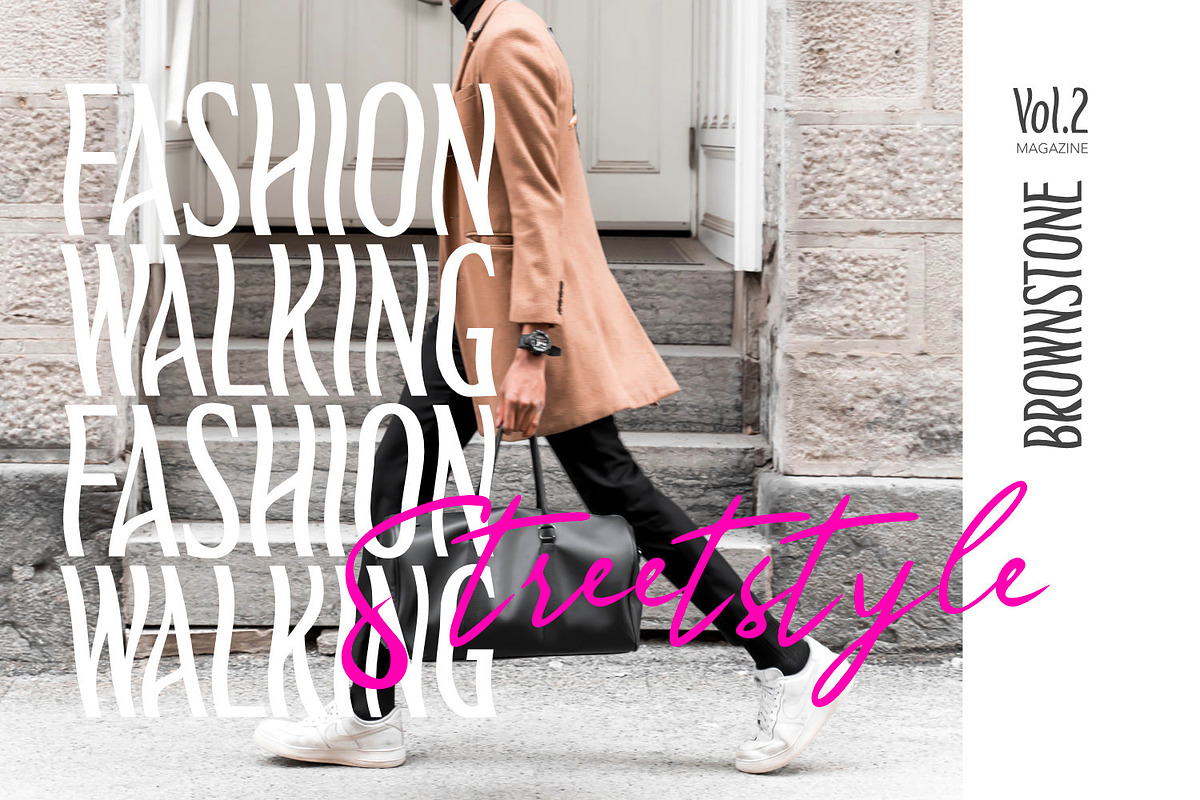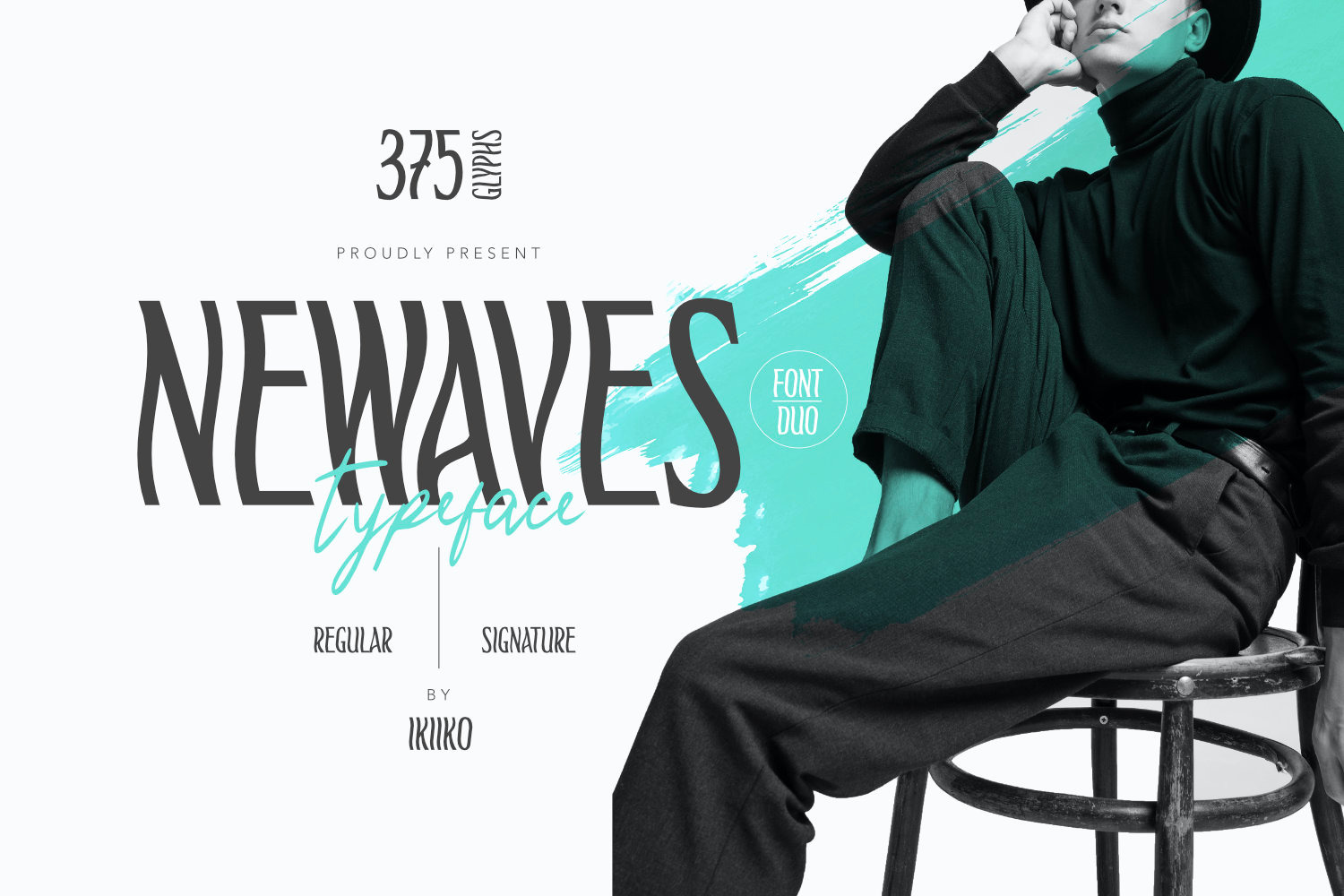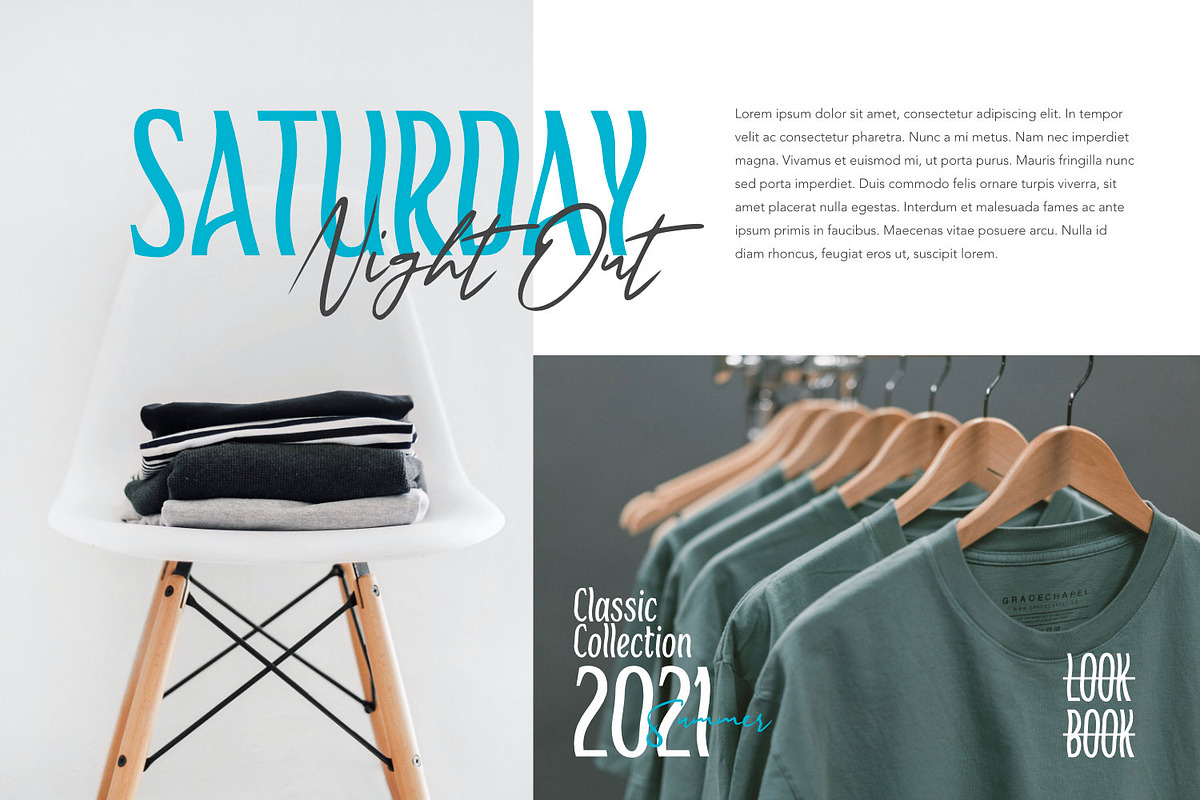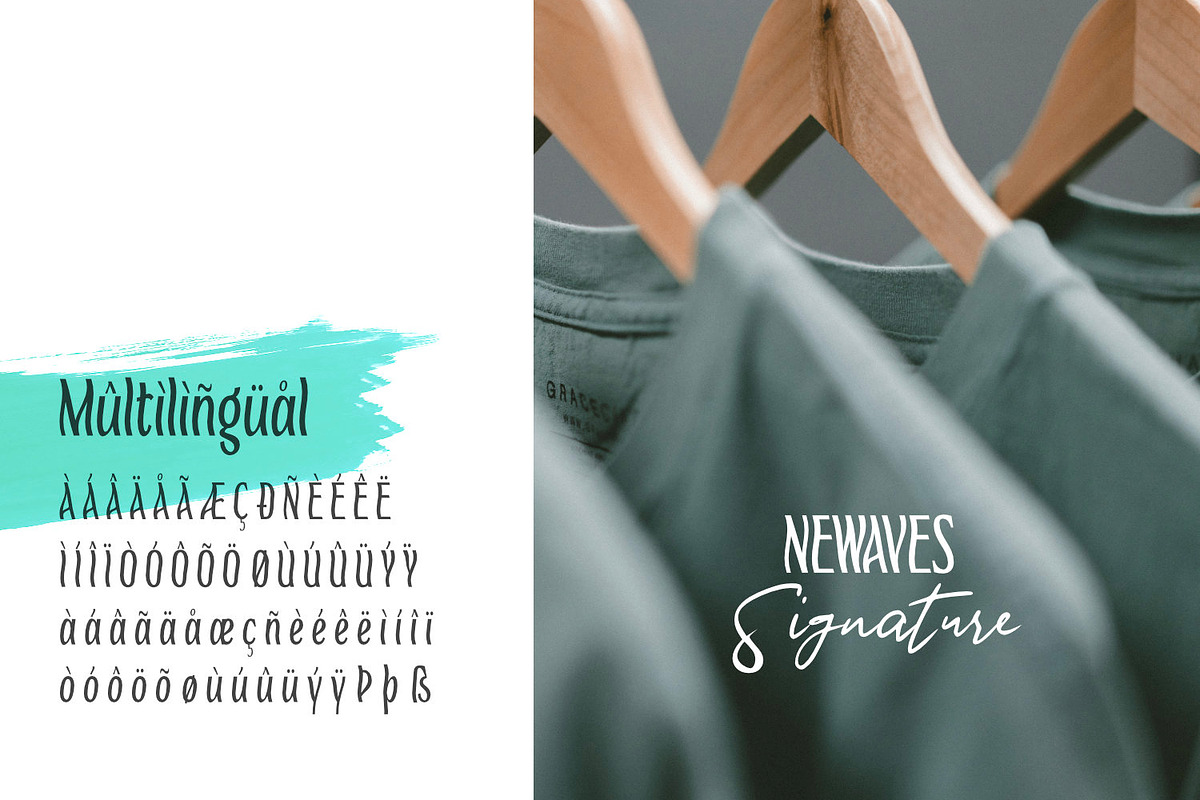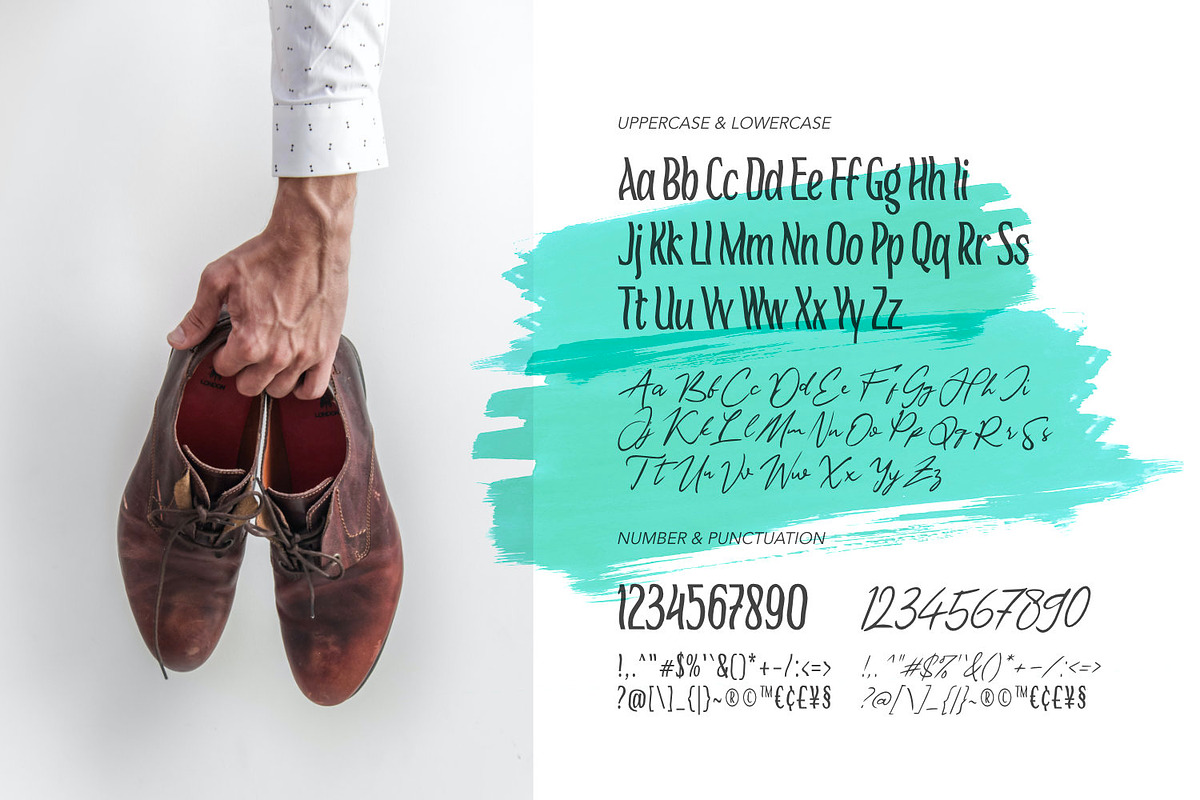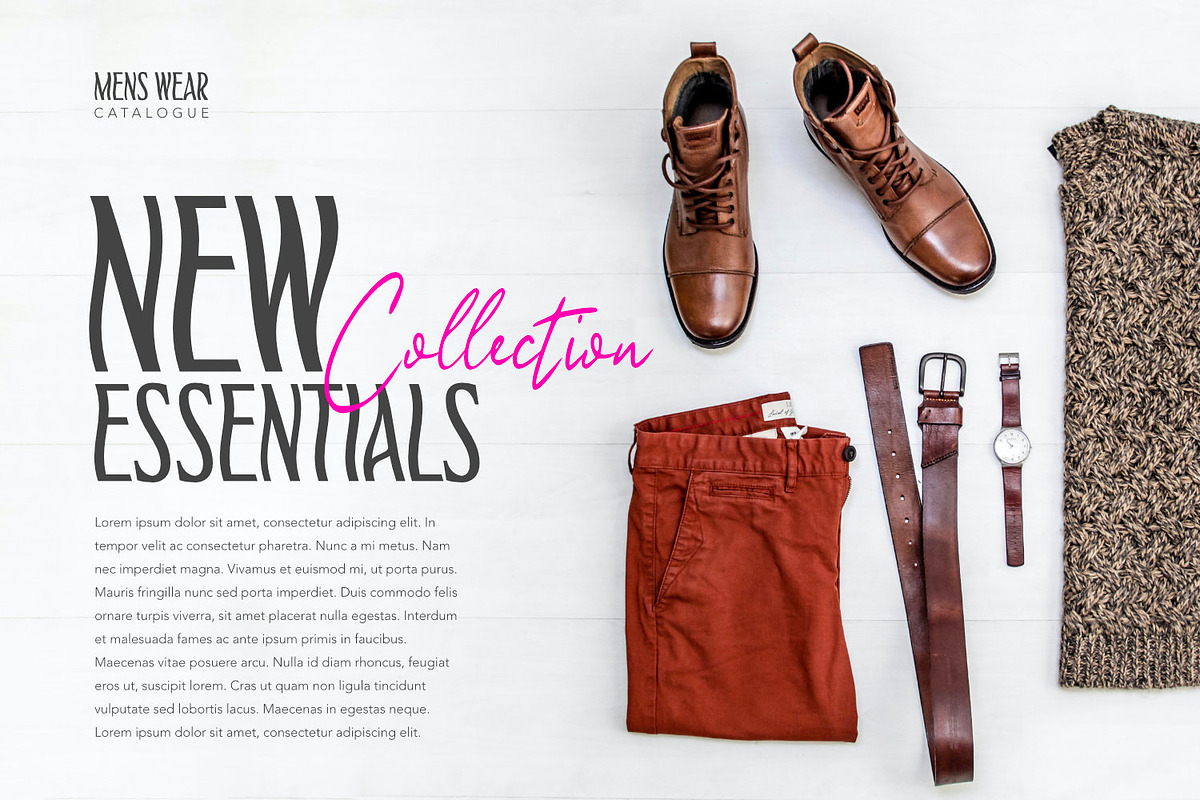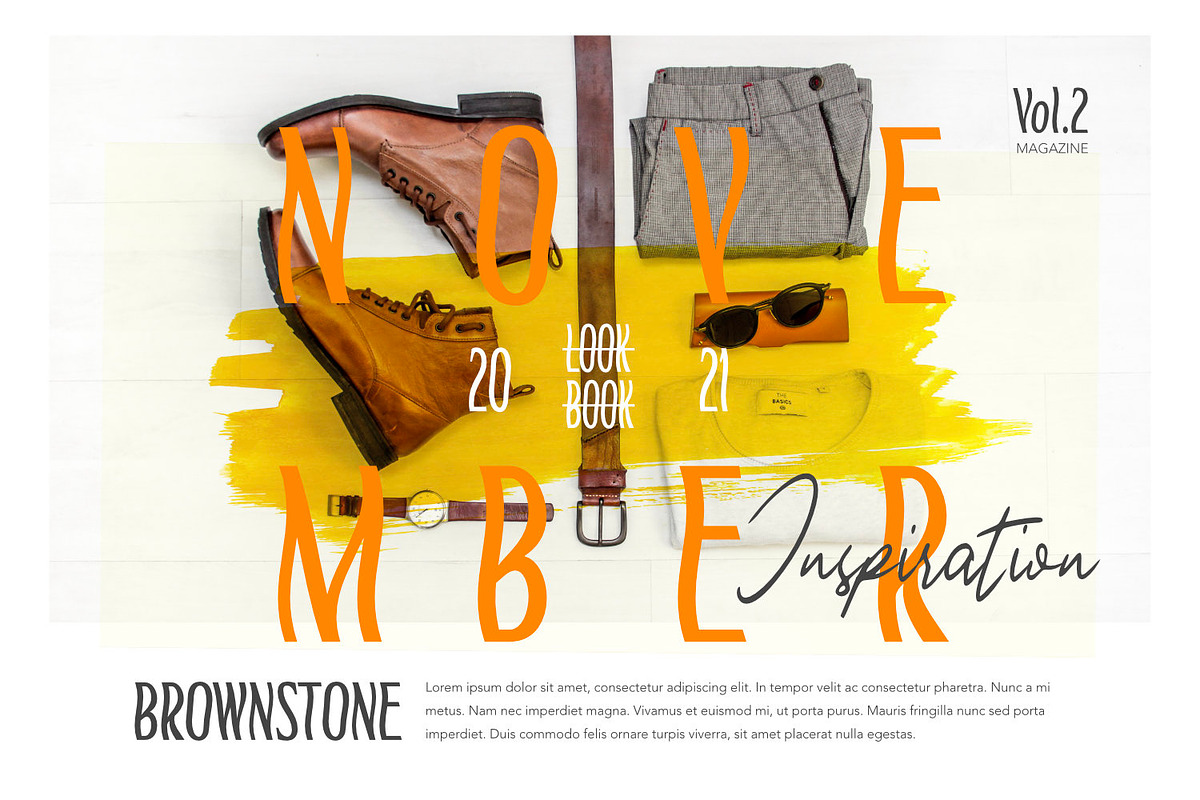
Newaves (Signature) - Font Duo
Introducing Newaves (Signature) - Font Duo, created by ikiiko.
Is a combination of beauty neat & luxury sans serif typeface with a simply script style. This typeface is perfect for an elegant logo, luxury fashion brand, magazine layout for header or headline, beauty product, packaging product, quotes, or simply as a stylish text overlay to any background image.
- Two (2) regular font : Sans Serif & Script
- Number & Punctuation